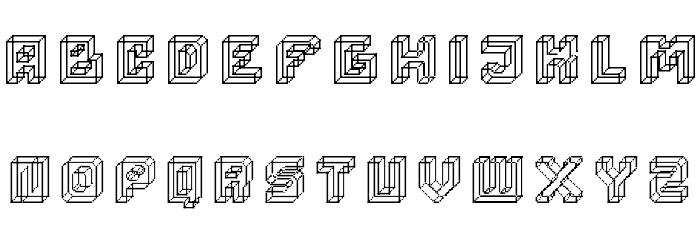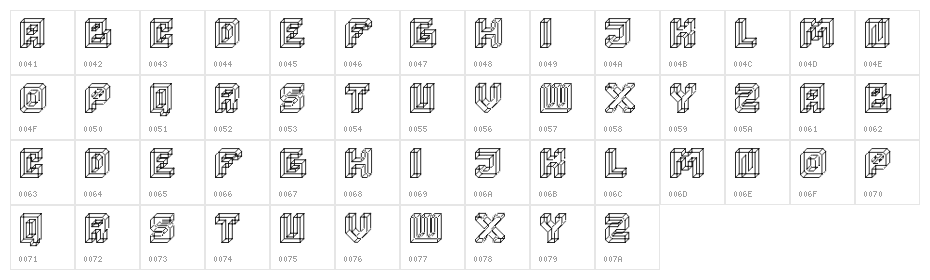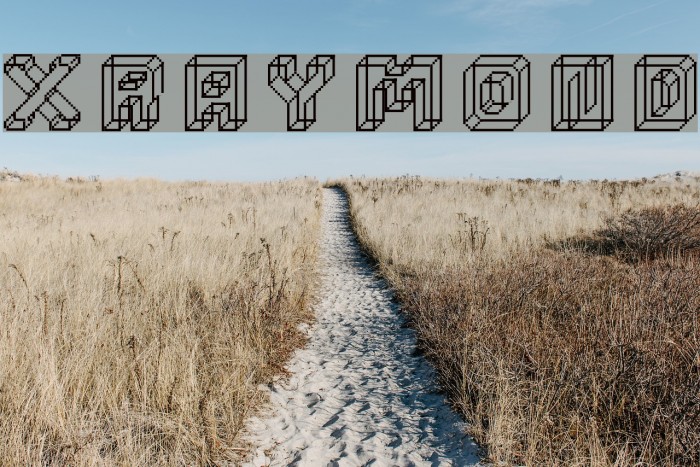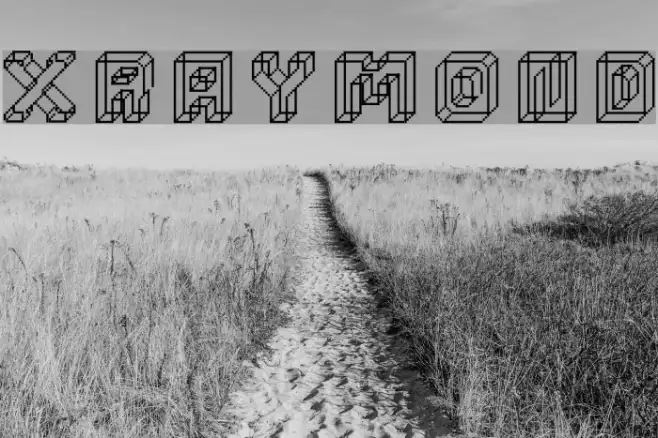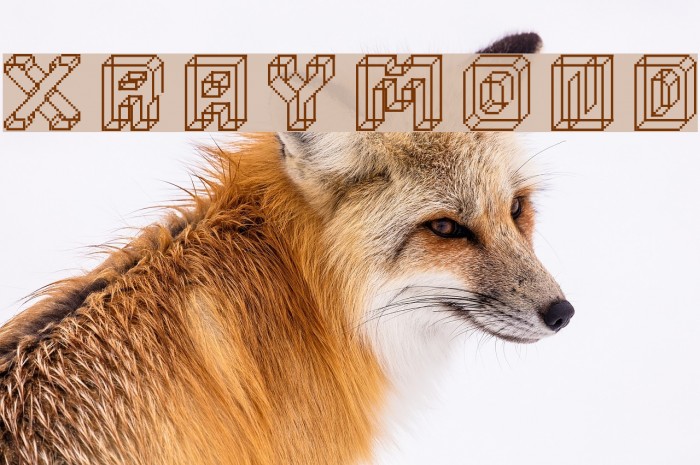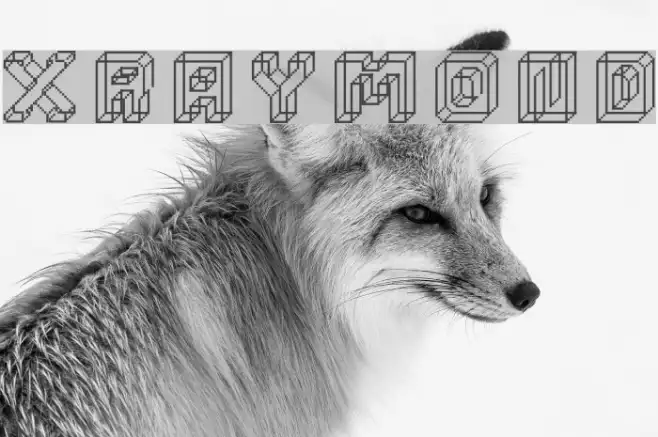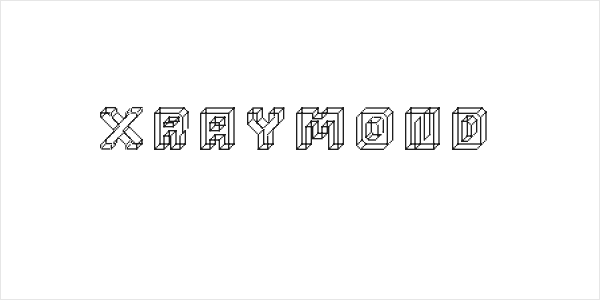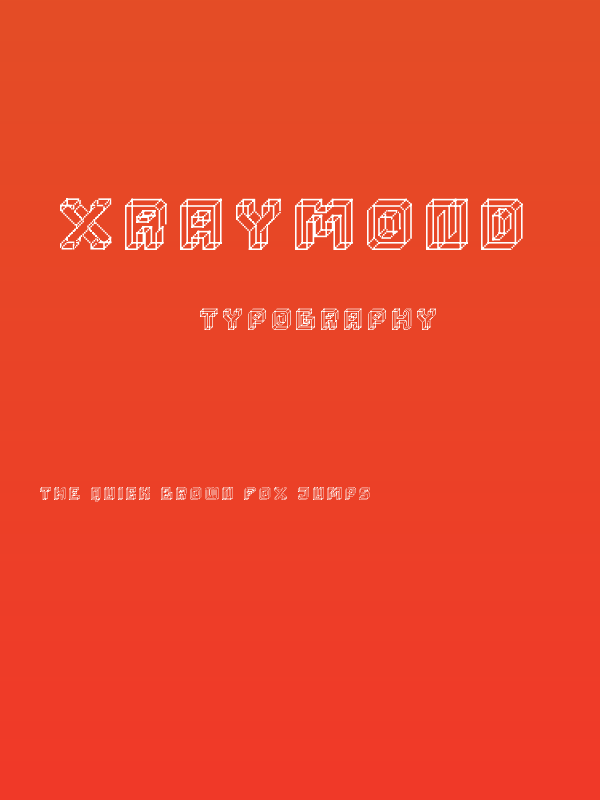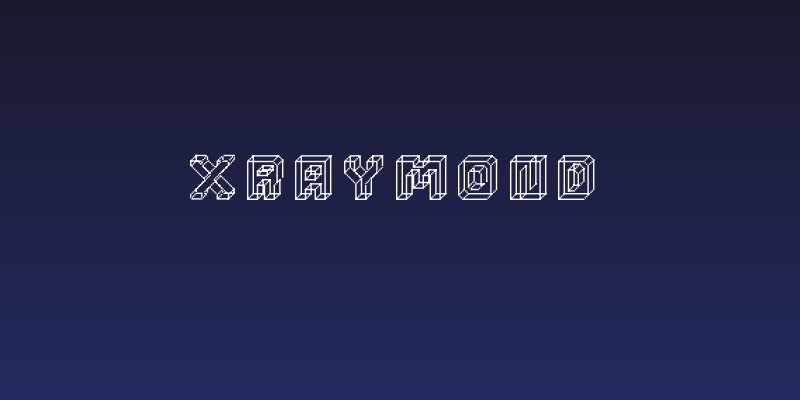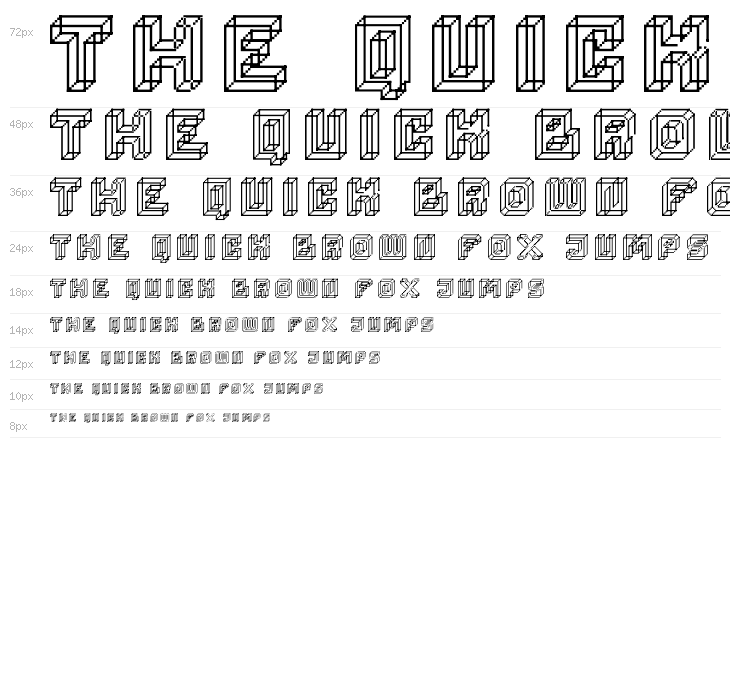
xraymond Font
xraymond Description
This font features a bold, three-dimensional geometric design that gives each character a distinct, block-like appearance. The letters are constructed with a series of lines that create an illusion of depth and perspective, reminiscent of architectural blueprints or technical drawings. The style is highly decorative, making it suitable for eye-catching designs. The uppercase letters are uniform in height, with consistent line thickness throughout, emphasizing the structural aspect of the font. The absence of curves and the reliance on straight lines and angles contribute to its modern and industrial feel.
| Proposed Projects | Ideal for use in posters, logos, and branding projects that require a modern and striking visual impact. |